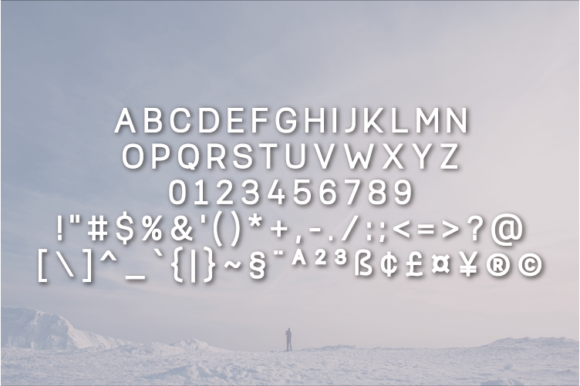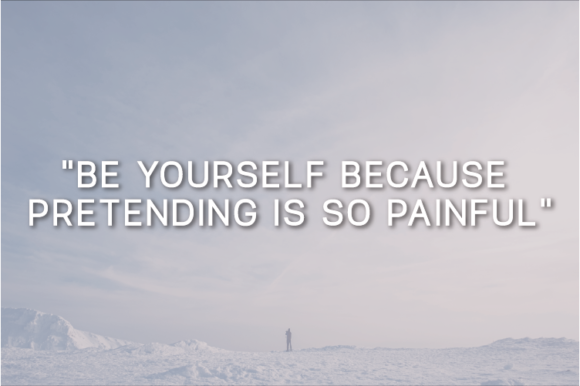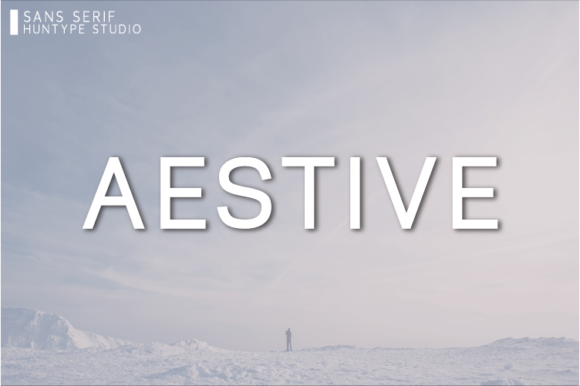
Aestive Font: Elevate Your Designs with a Minimal and Neat Sans Serif
Are you a designer or crafter looking for a font that can effortlessly elevate your creative projects? Look no further than Aestive Font, a stunning sans serif font that is both minimal and neat. With its clean lines and simple aesthetic, Aestive is the perfect addition to any design, making it stand out from the crowd.
The Versatility of Aestive Font
One of the best things about Aestive Font is its incredible versatility. Its neutral and uncluttered design makes it an excellent match for a wide range of projects, from modern branding and advertising to crafting and DIY tutorials. Whether you’re working on a sleek and sophisticated campaign or a fun and playful project, Aestive Font is sure to complement your design with ease.
Key Features of Aestive Font
• Minimal and Neat Design: Aestive Font boasts a clean and simple sans serif design that exudes elegance and sophistication.
• Highly Versatile: Aestive Font can be used in a wide range of projects, from modern branding and advertising to crafting and DIY tutorials.
• Easily Readable: The font’s clear and concise design makes it easy to read, even at small sizes.
• Perfect for Digital and Print: Aestive Font is optimized for both digital and print use, making it a great choice for designers and crafters who work across multiple mediums.
How to Use Aestive Font in Your Designs
Using Aestive Font in your designs is easy. Here are a few tips to get you started:
• Pair it with Bold Colors: Aestive Font looks stunning when paired with bold and bright colors. Try using it with a vibrant color scheme to add a pop of personality to your design.
• Experiment with Texture and Patterns: Aestive Font can add a touch of sophistication to texture and pattern-based designs. Try using it to add a clean and simple overlay to your design.
• Use it for Headings and Titles: Aestive Font is perfect for headings and titles, where its clean and simple design can really shine.
Why Choose Aestive Font?
So why choose Aestive Font for your next design project? Here are just a few reasons:
• Unique and Eye-Catching: Aestive Font is a unique and eye-catching addition to any design, setting it apart from more traditional fonts.
• Easy to Read and Understand: The font’s clear and concise design makes it easy to read and understand, even for audiences with limited design experience.
• Highly Versatile: Aestive Font can be used in a wide range of projects, making it a great addition to any design library.
In conclusion, Aestive Font is a stunning sans serif font that is perfect for designers and crafters looking to elevate their creative projects. With its minimal and neat design, high versatility, and ease of use, Aestive Font is sure to become a go-to choice for anyone looking to add a touch of sophistication and elegance to their designs.